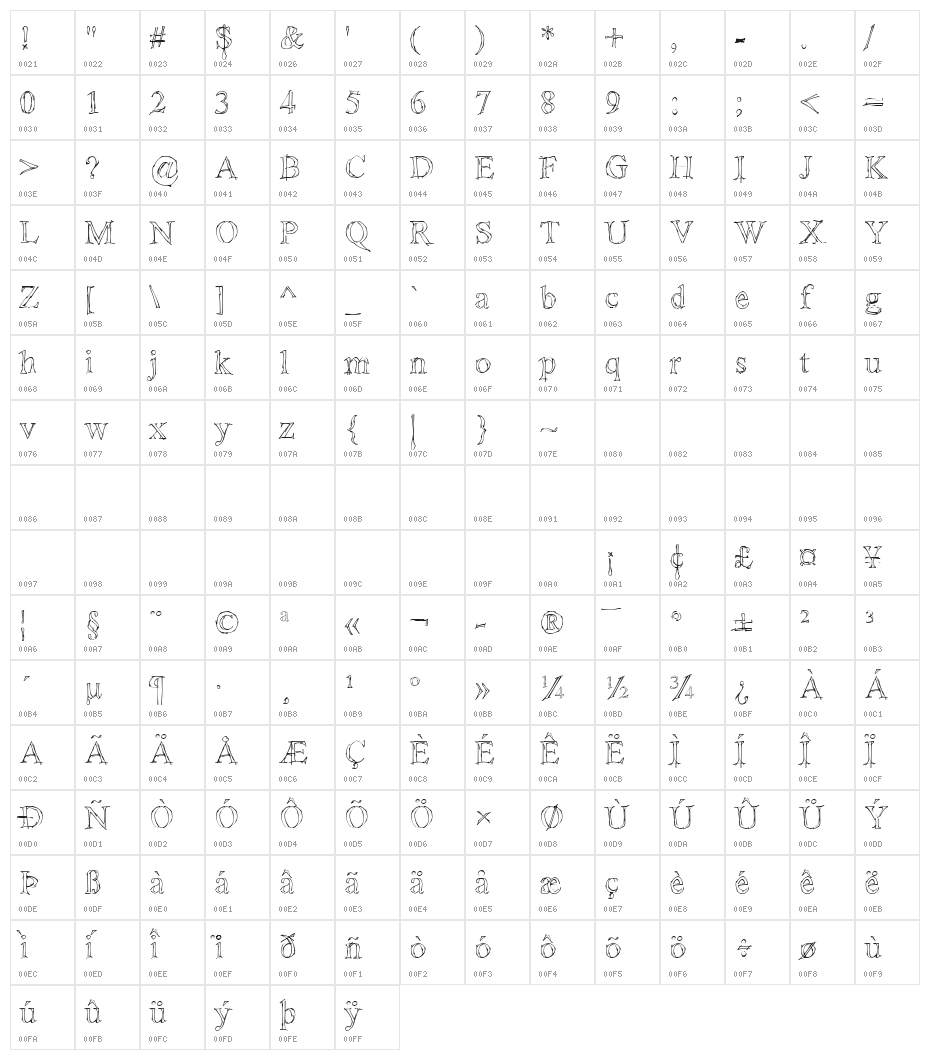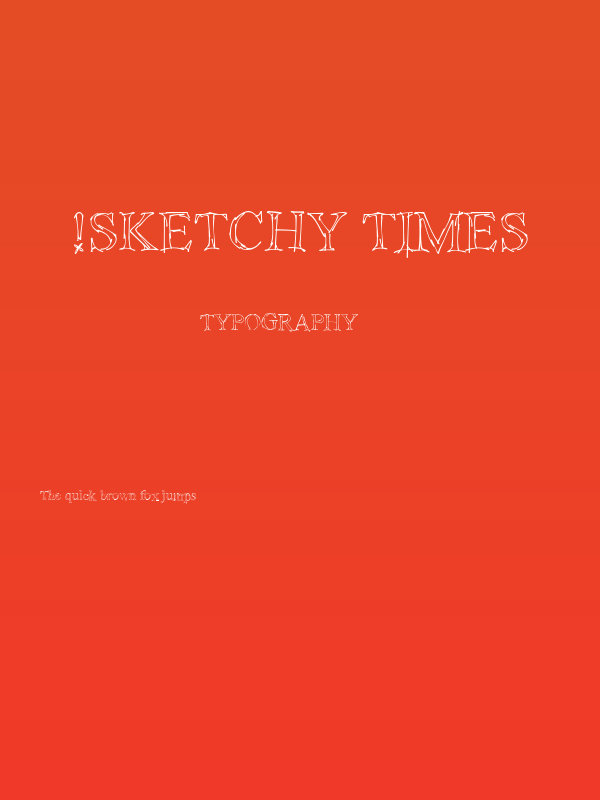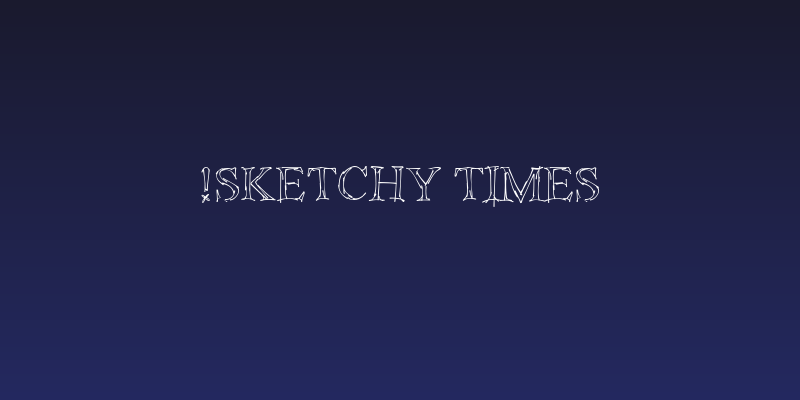
!Sketchy Times Font
| Anwendungsfall | Headlines, Logos, Artistic projects |
| Vorgeschlagene Projekte | Ideal for creative projects such as children's books, artistic posters, playful branding, and unique invitations. |